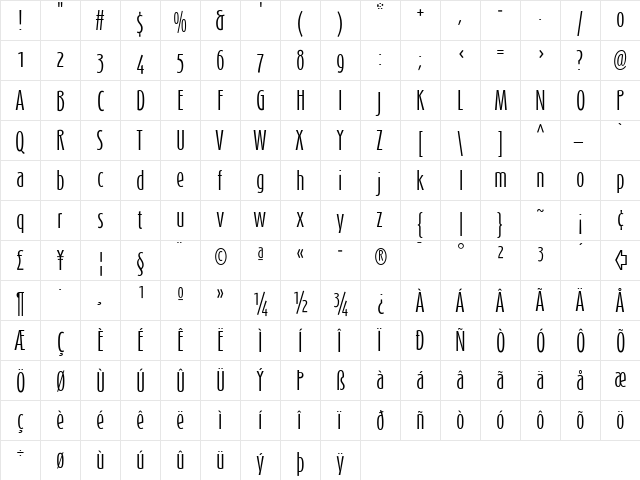
Schmalhans Regular
Design Context for Schmalhans Typeface
Schmalhans takes a measured approach to typography — its balanced proportions and neutral character make it a reliable workhorse for both digital and print work.
Pro Tip: Use Schmalhans in both headline and body roles to test its range before committing to a single application.